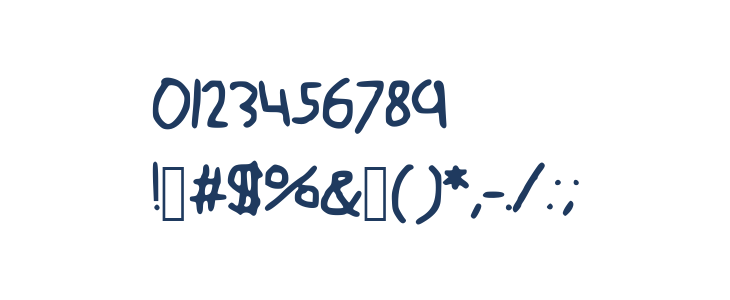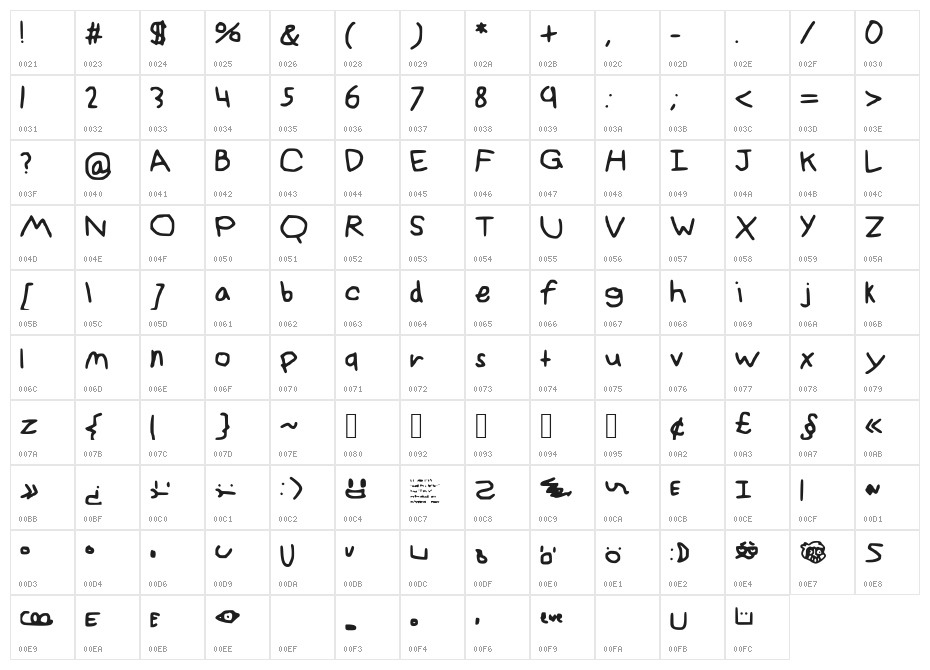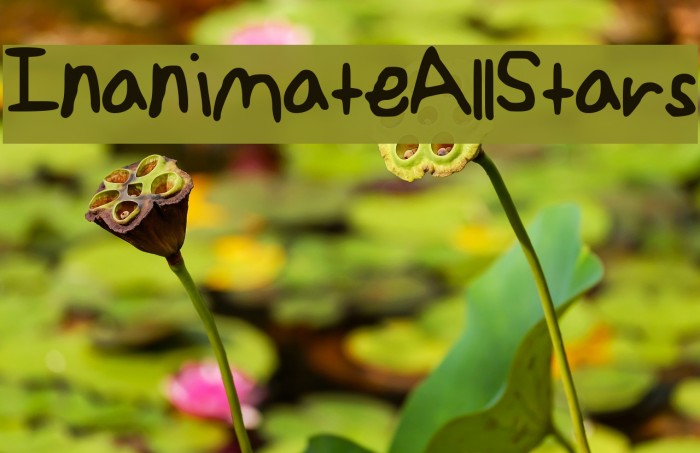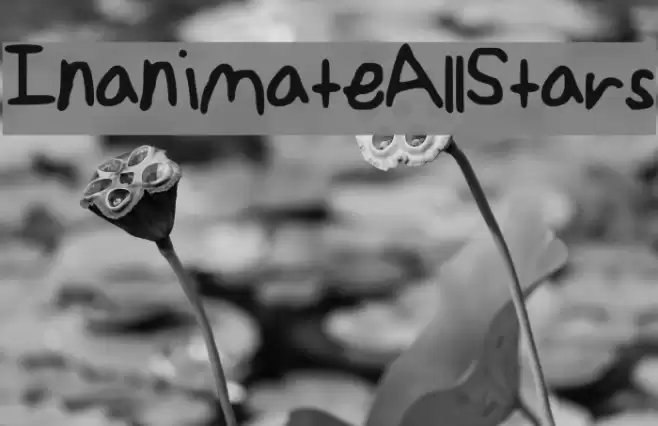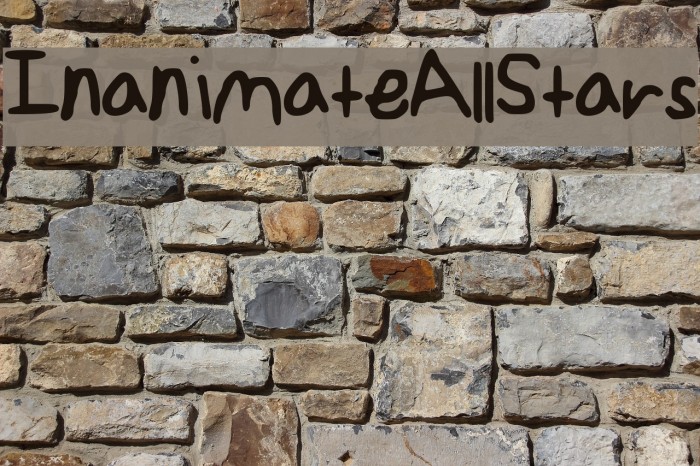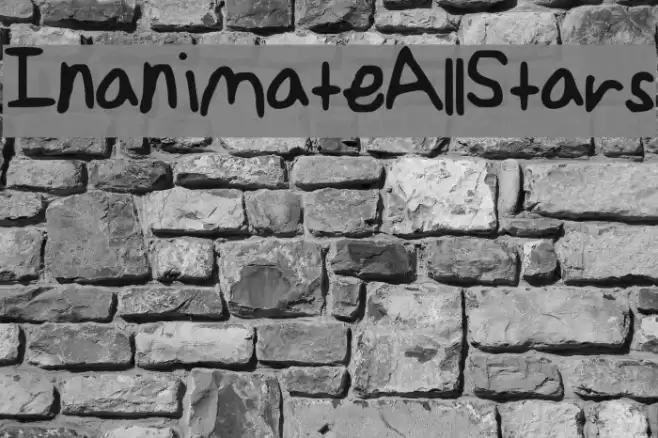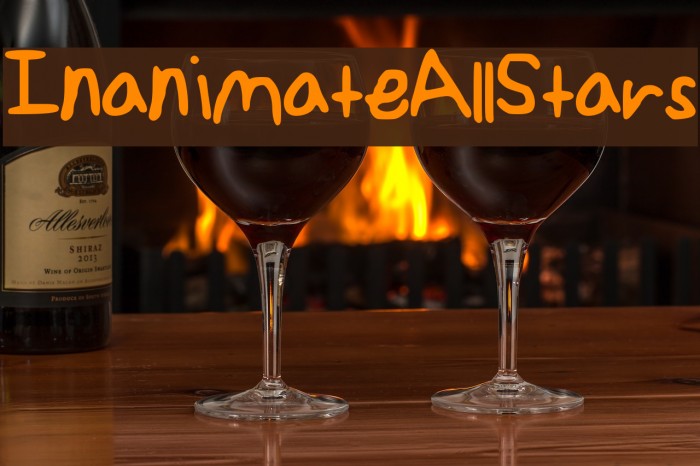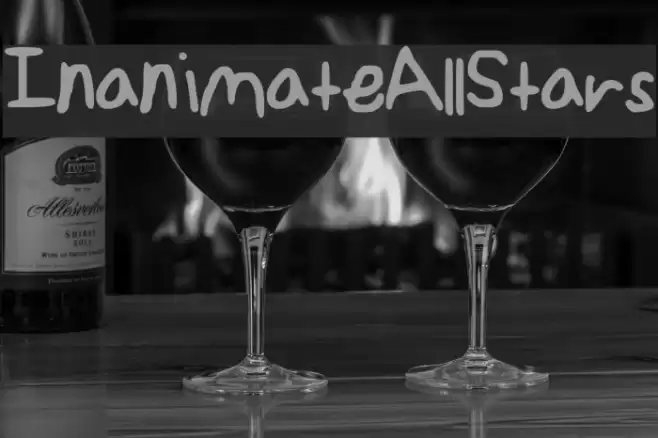
Inanimate_AllStars Font
Inanimate_AllStars Description
This playful and energetic font features a handwritten style with a casual, informal appearance. The letters are bold and rounded, with a slightly uneven baseline that adds to its charm. The uppercase and lowercase characters maintain a consistent style, while the numerals and special characters complement the overall design. The font's strokes are thick and uniform, giving it a strong presence on the page. Its whimsical nature makes it ideal for projects that require a fun and approachable aesthetic.
| Overall Style | Playful, Casual |
| Proposed Projects | Ideal for children's books, comic strips, playful branding, greeting cards, and social media graphics. |